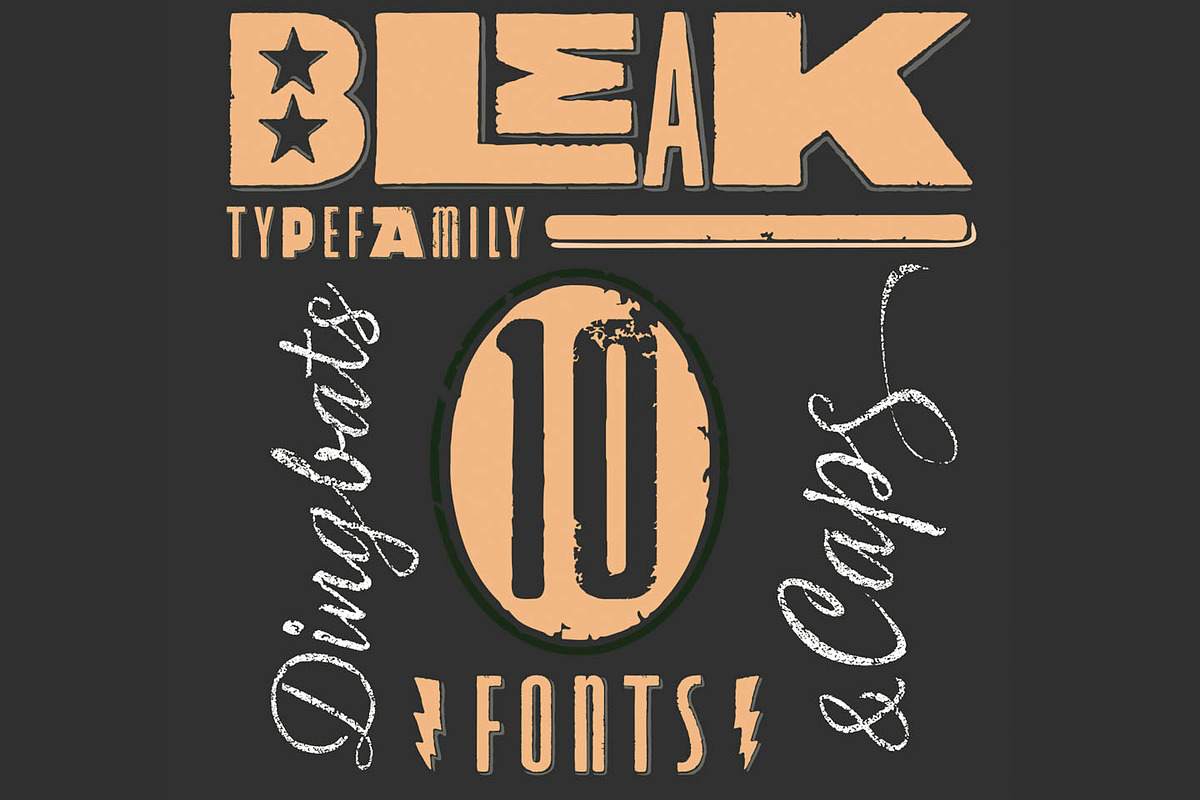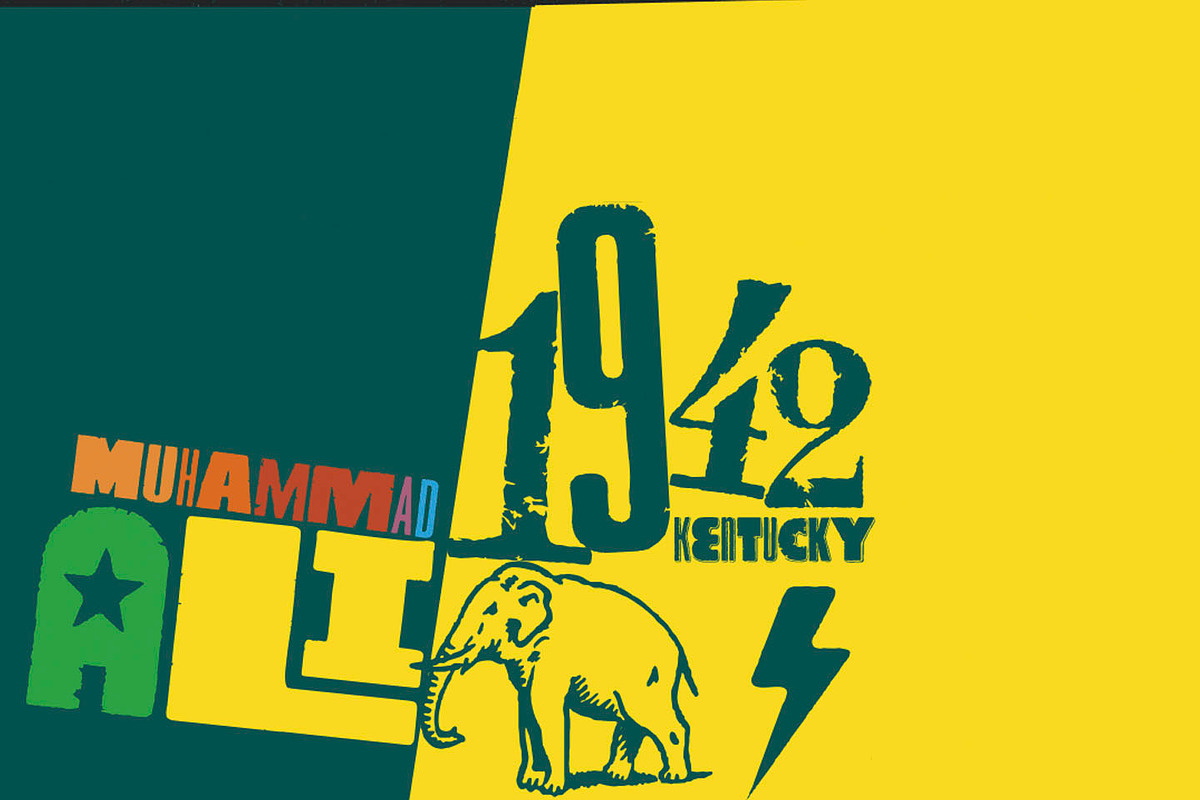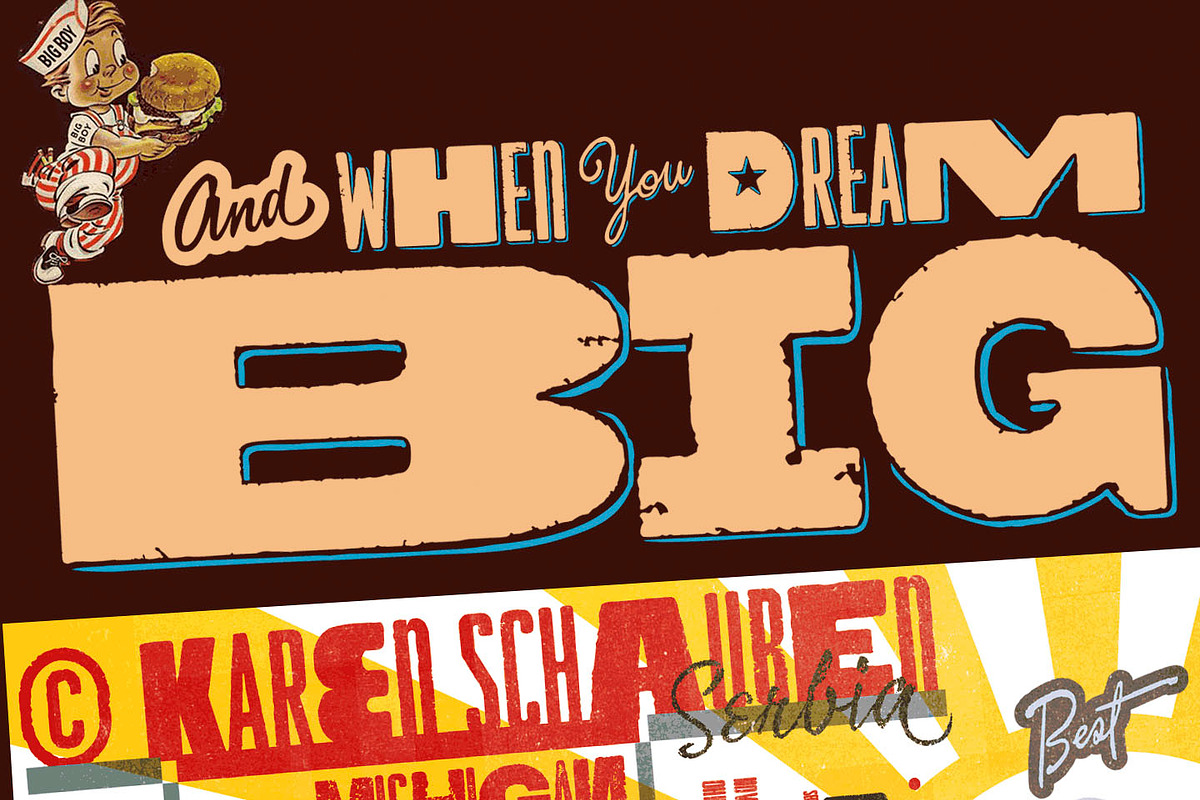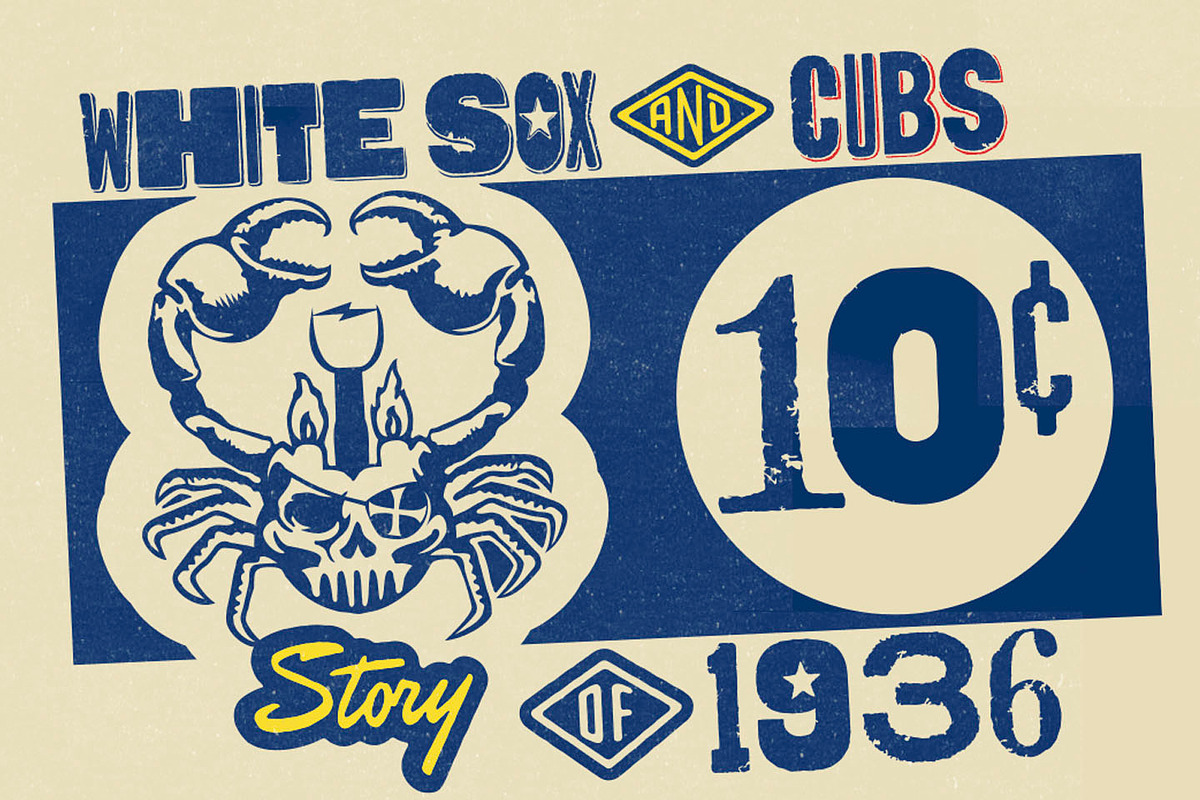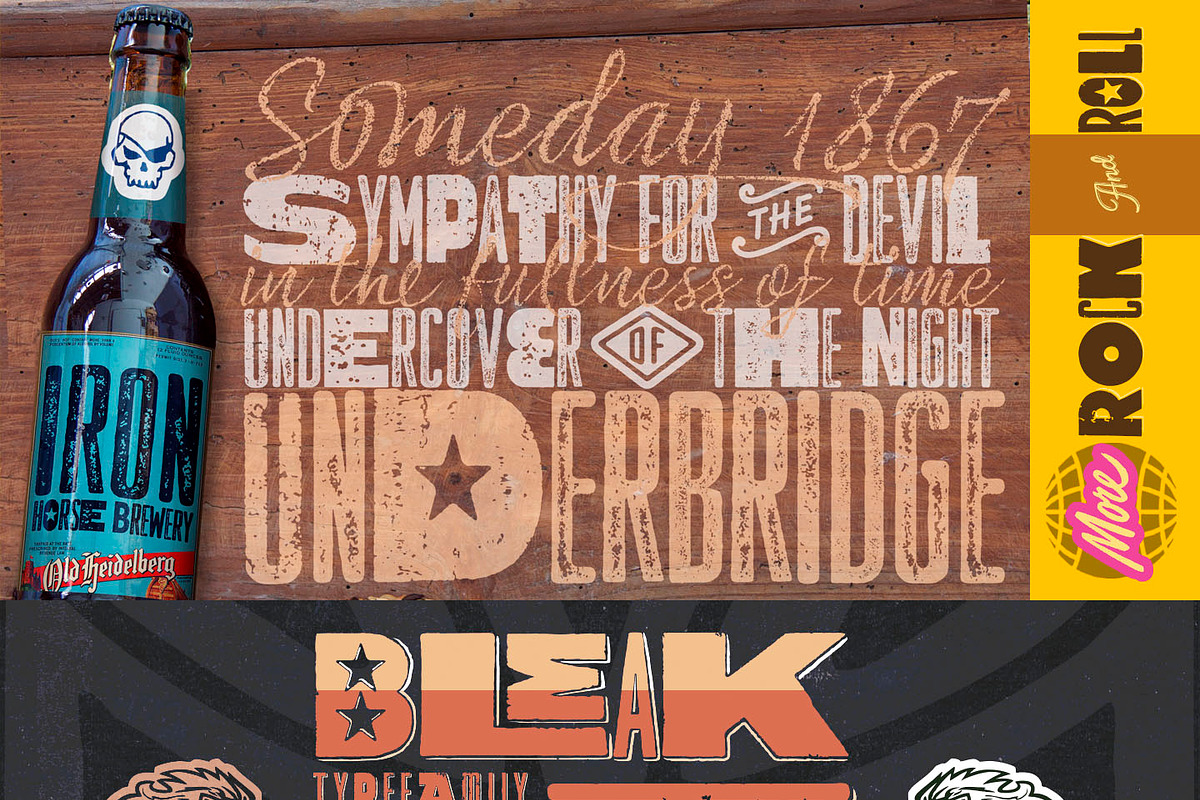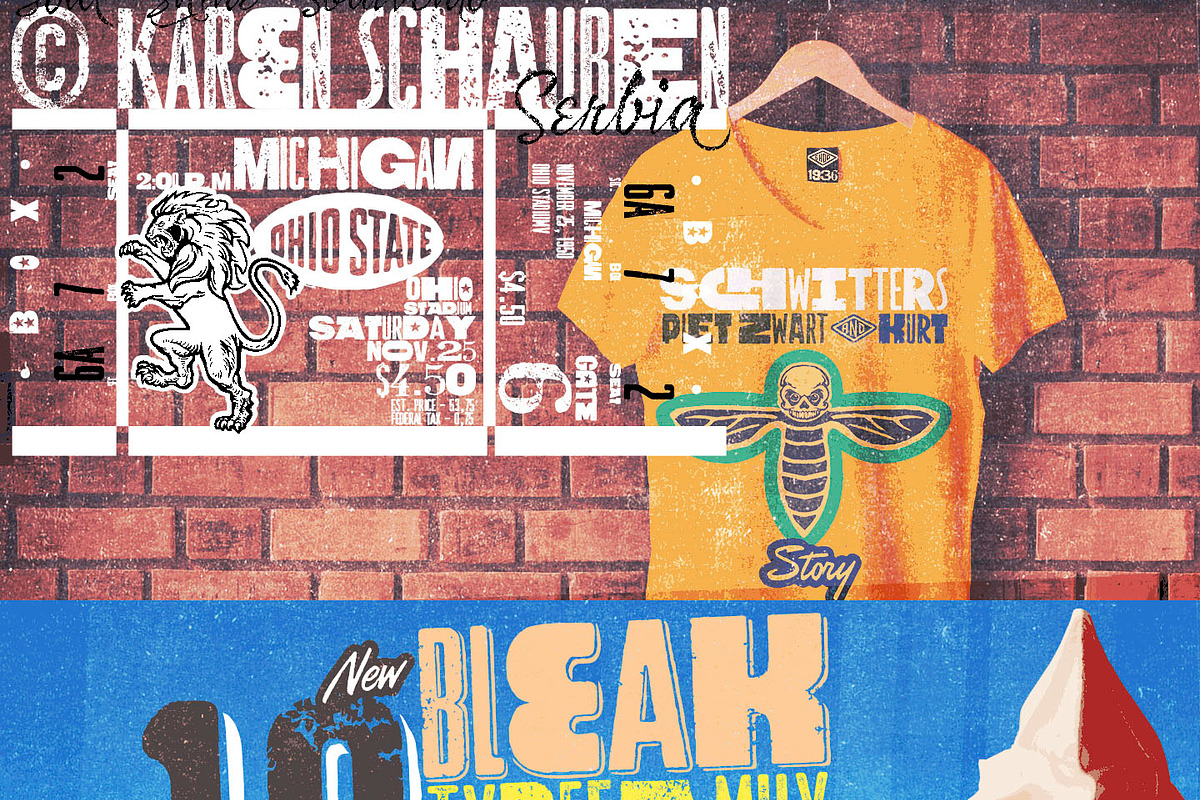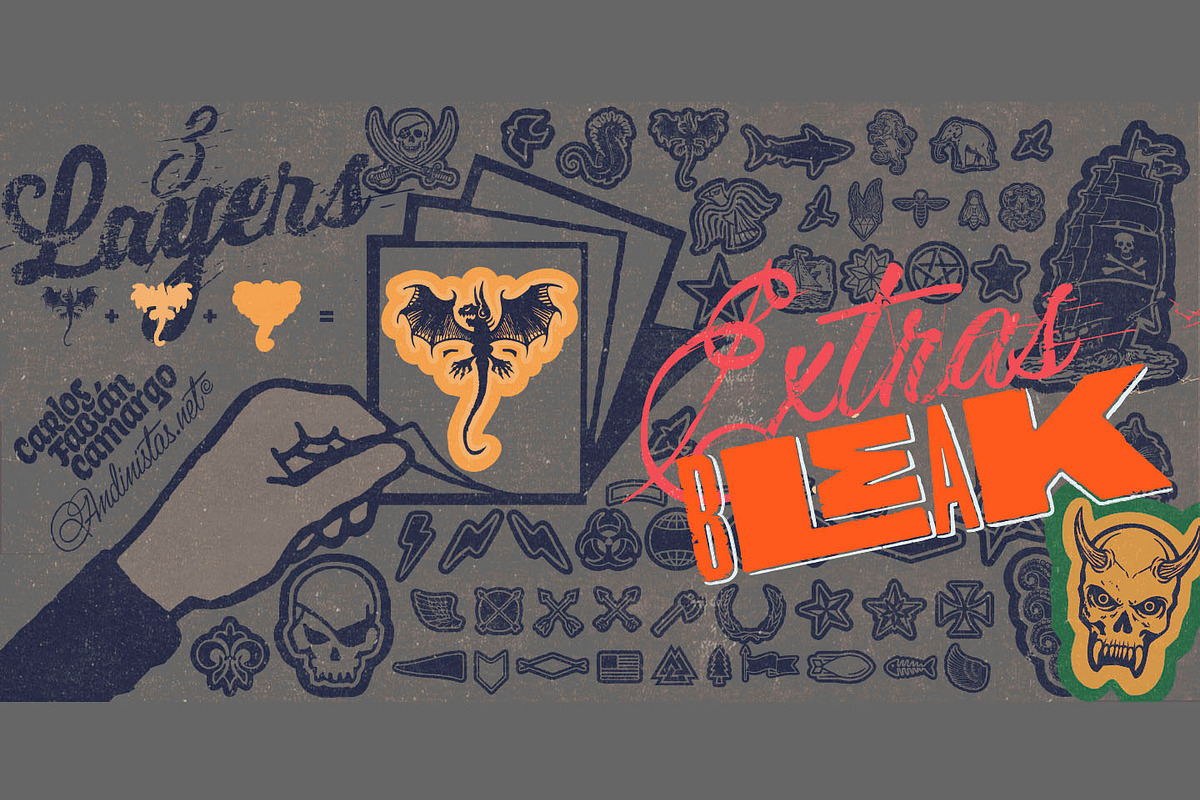
Bleak Type Family / 10 Fonts
★@andinistas presents an experimental font designed by #carlosfabiancg★. Bleak is based on the imaginative use of contrast applied in the empty space and on the dramatic distributions of the wide and compressed horizontal of more than 400 textured symmetric capitals inspired by compositions of the Lissitzky, Theo van Doesburg, among others. In the Europe of the 20s, scarce resources prevailed, which gave these great artists the firm determination and dedication to create a visual vocabulary, characteristic of the composition with movable types of wood and metal. As they did not readily dispose of the forms of the letters they required, they did not hesitate to construct them with metal rulers, ornaments and other improvised pieces and remains and obtained in the forgotten corners of the typographic composition workshop.